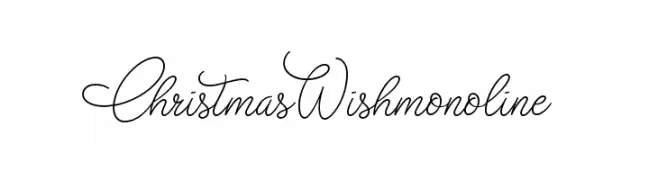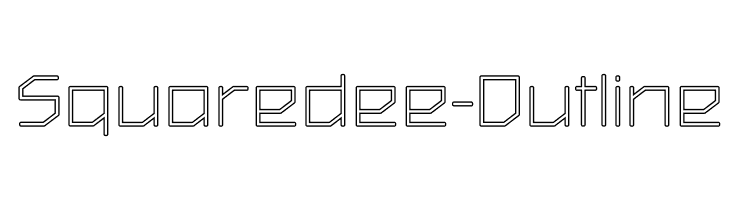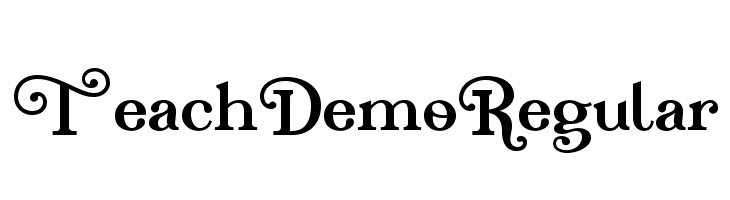
( GroovyJournal - www.groovyjournal.com )
A playful, whimsical font with bold uppercase and fluid lowercase characters.
( JP Designs )
A futuristic, geometric font with angular, segmented letterforms.
( JP Designs )
A futuristic, geometric font with sharp angles and a bold design.
( JP Designs )
A modern, geometric font with clean lines and a minimalist design.
( Maestroentertainment )
A whimsical, fantasy-themed font with imaginative, decorative characters.
( Noponies - noponies.com )
A playful, rounded font with a friendly, balloon-like appearance.
( Roland Huse Design - www.rolandhuse.com )
A decorative font with playful curls and elegant swirls.
( Skyhaven Fonts - fonts.plph.co )
A modern, geometric font with bold uppercase letters and numerals.